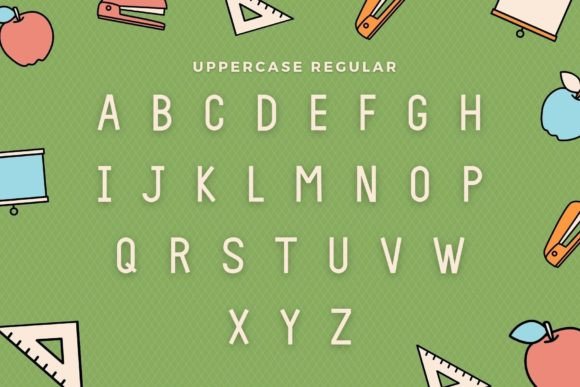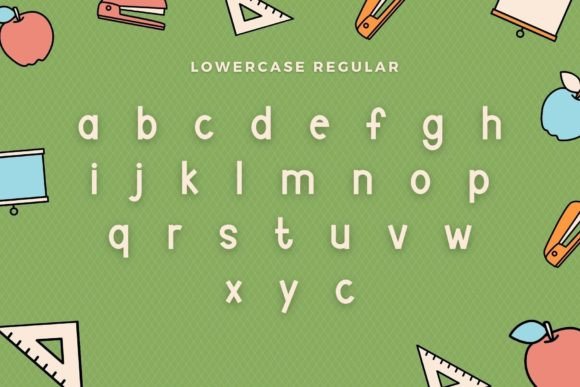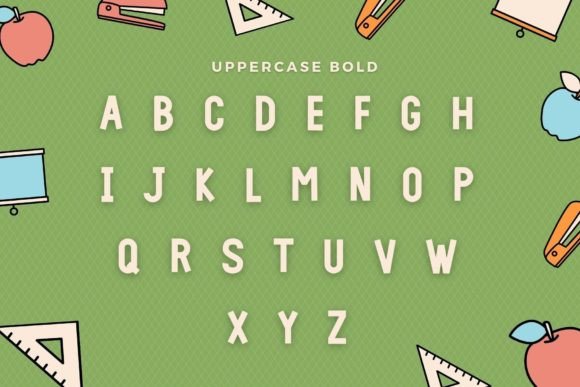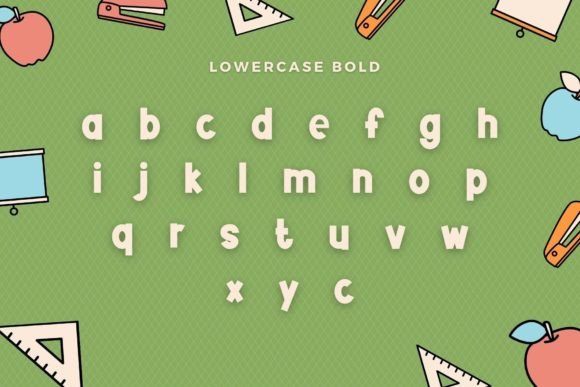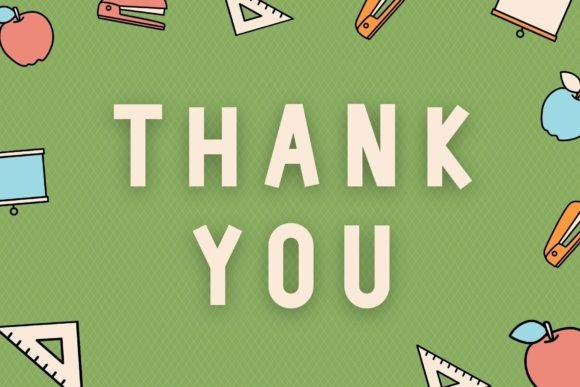
Back to School Font: The Ultimate Guide for Designers and Crafters
As the new school year approaches, designers and crafters are on the lookout for the perfect font to add a touch of excitement and playfulness to their projects. Look no further than the BC Back to School font, a cool and kid-styled display font that’s perfect for a variety of creative endeavors. In this article, we’ll dive into the world of back to school fonts, explore the features of the BC Back to School font, and provide you with inspiration and ideas for using it in your designs.
The Importance of Fonts in Design
Fonts play a crucial role in design, as they can make or break the visual appeal of a project. The right font can evoke emotions, convey personality, and add a touch of whimsy to your designs. When it comes to back to school designs, a fun and playful font is essential for capturing the excitement and energy of the new school year.
Introducing BC Back to School Font
BC Back to School is a cool and kid-styled display font that’s perfect for designers and crafters looking to add a touch of playfulness to their projects. This font is versatile and can be used for a wide range of applications, including:
- Blog posts: Add a fun and playful touch to your blog posts with the BC Back to School font.
- Logos and branding: Use the BC Back to School font to create a unique and memorable logo for your business or brand.
- Ads and invitations: Grab attention with the BC Back to School font in your ads and invitations.
- Greeting cards and planners: Add a personal touch to your greeting cards and planners with this charming font.
- Photo albums and decorations: Use the BC Back to School font to add a playful touch to your photo albums and decorations.
Features of BC Back to School Font
The BC Back to School font has several features that make it a standout choice for designers and crafters. Some of its key features include:
- Cool and kid-styled design: The BC Back to School font has a fun and playful design that’s perfect for back to school projects.
- Display font: This font is designed to make a statement, making it perfect for headlines, titles, and other display text.
- Versatile: The BC Back to School font can be used for a wide range of applications, from digital designs to print projects.
Tips for Using BC Back to School Font
Here are some tips for using the BC Back to School font in your designs:
- Pair it with other fonts: Combine the BC Back to School font with other fonts to create a unique and visually appealing design.
- Experiment with colors: Try out different colors and color combinations to add an extra pop of fun to your designs.
- Use it for headings and titles: The BC Back to School font is perfect for headings and titles, where you want to grab attention and make a statement.
Inspiration for Back to School Designs
Need some inspiration for your back to school designs? Here are a few ideas to get you started:
- Create a back to school planner or calendar with fun and colorful designs.
- Design a set of back to school greeting cards or invitations with the BC Back to School font.
- Make a photo album or scrapbook with pictures of kids heading back to school.
- Design a back to school-themed blog post or social media graphic with the BC Back to School font.
The BC Back to School font is a versatile and fun font that’s perfect for designers and crafters looking to add a touch of playfulness to their back to school projects. With its cool and kid-styled design, this font is sure to capture the excitement and energy of the new school year. Whether you’re creating blog posts, logos, ads, or decorations, the BC Back to School font is a great choice. So why wait? Add it to your designs today and enjoy the results!